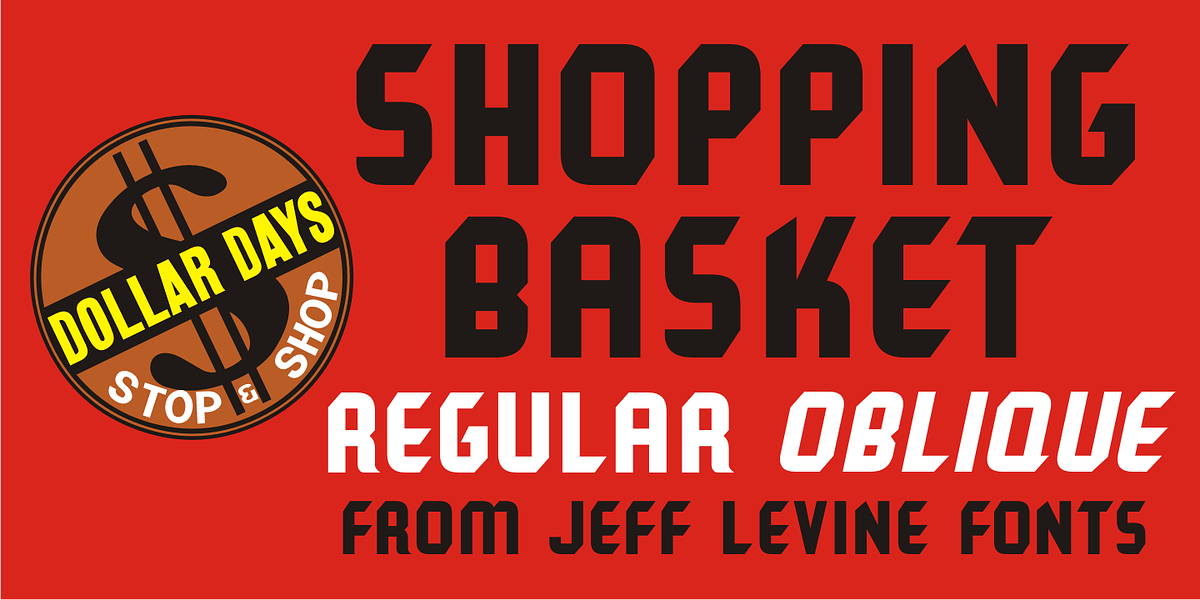
Shopping Basket JNL
The cover of the vintage sheet music for "This Little Piggie Went to Market" (from the 1934 film "Eight Girls in a Boat") features a hand-lettered sans serif with intermittent chamfered angles.